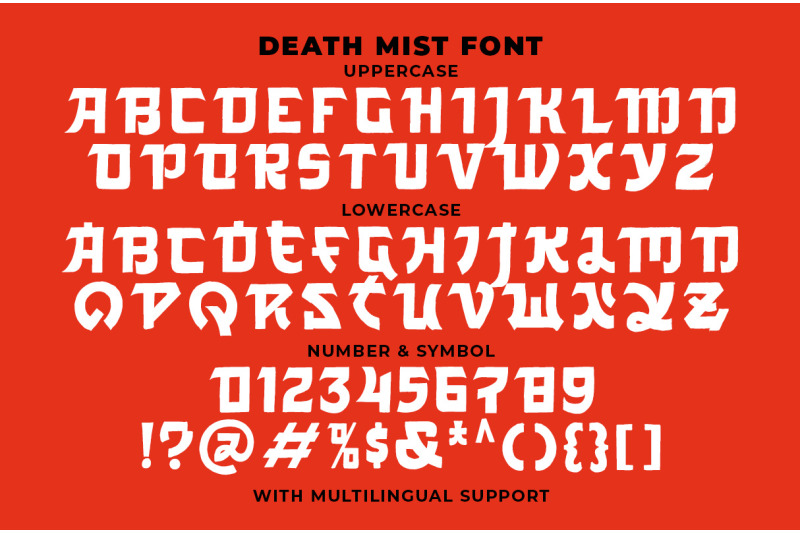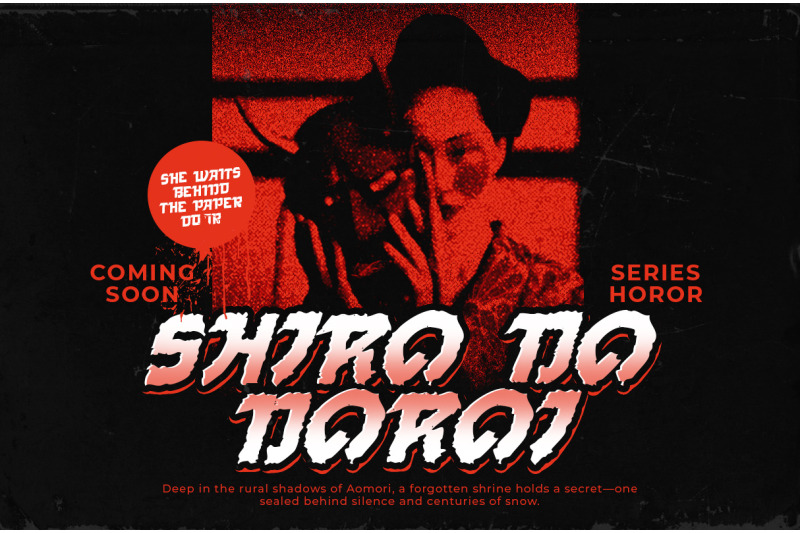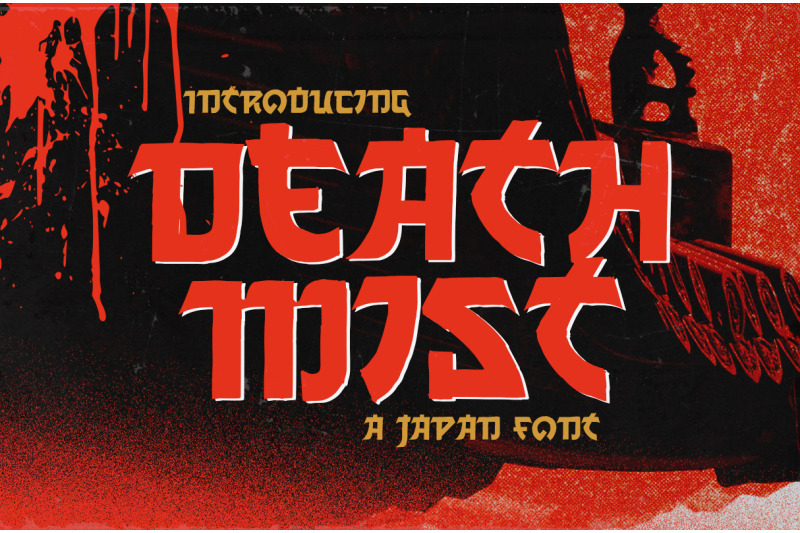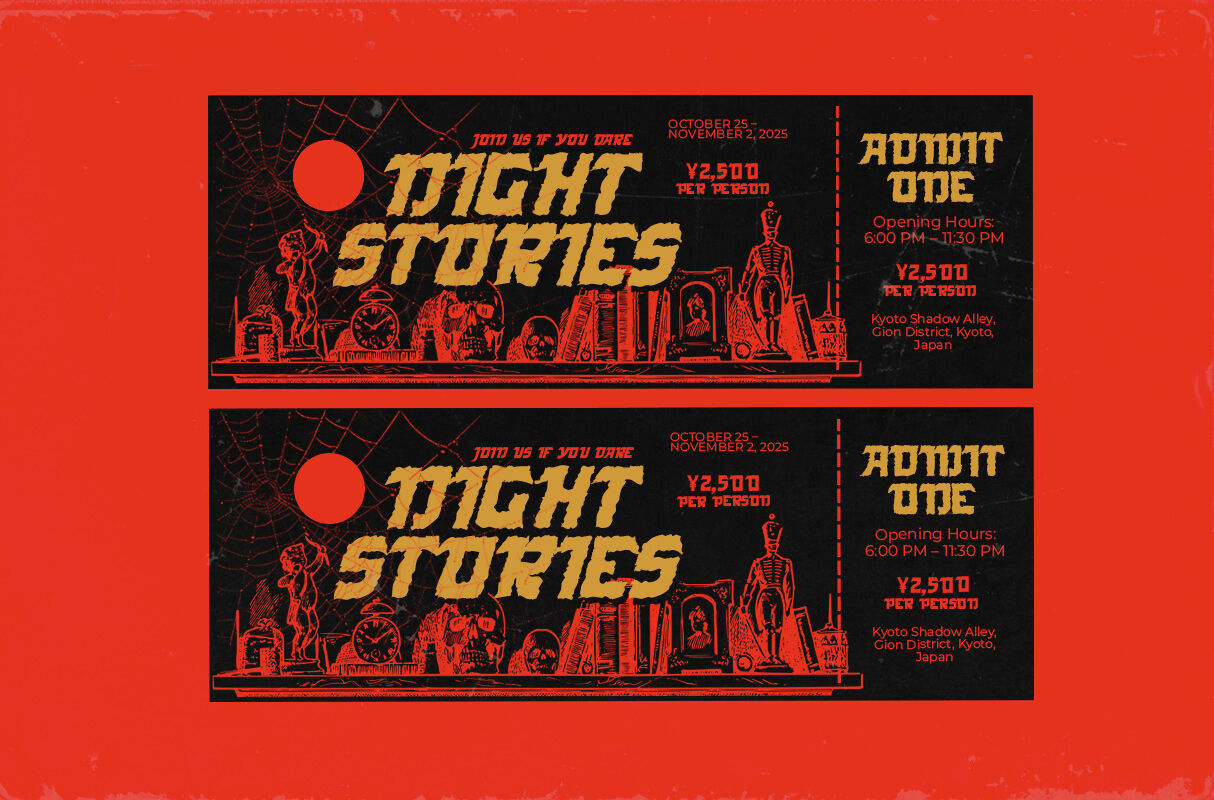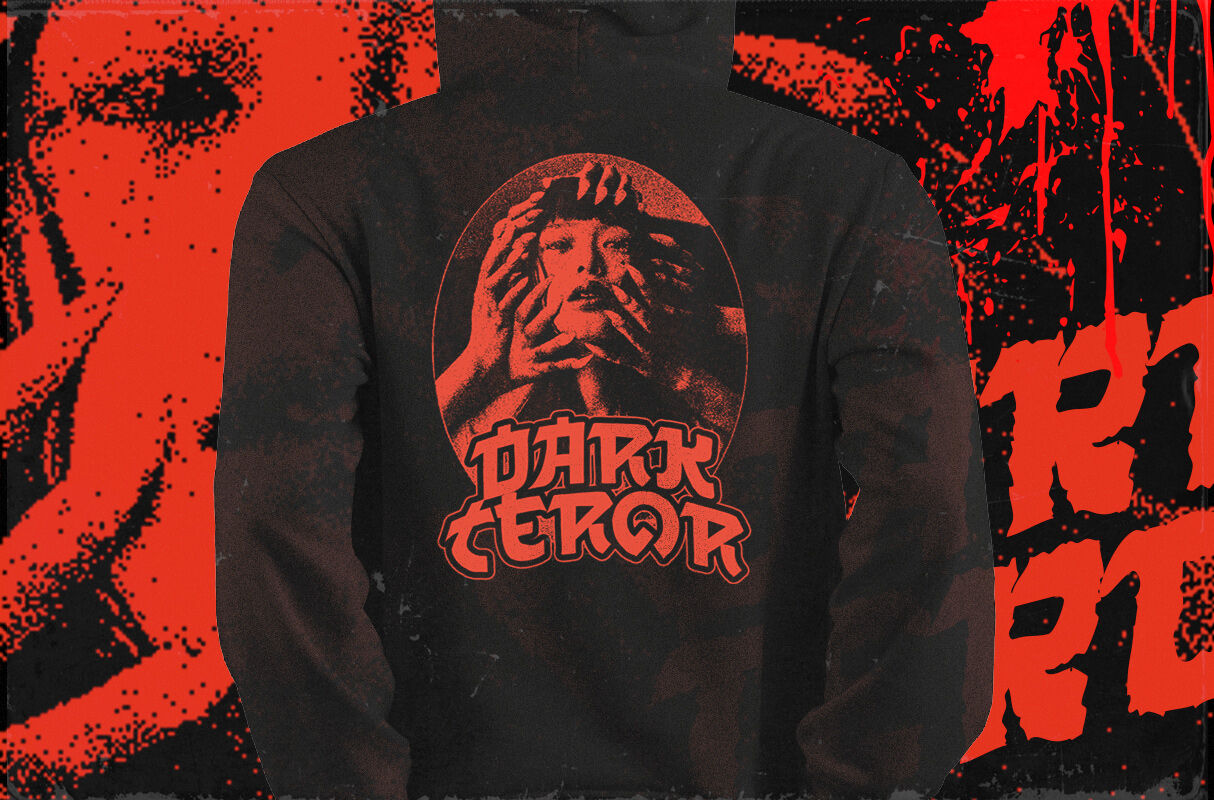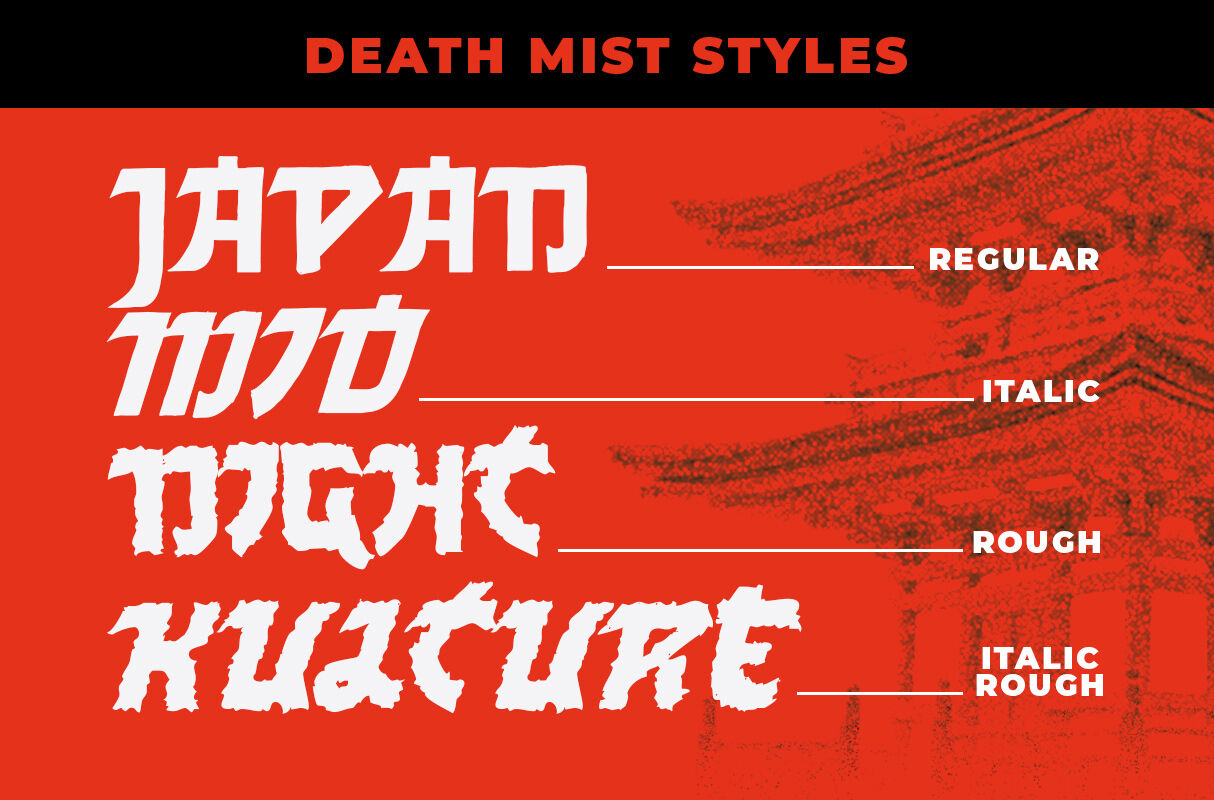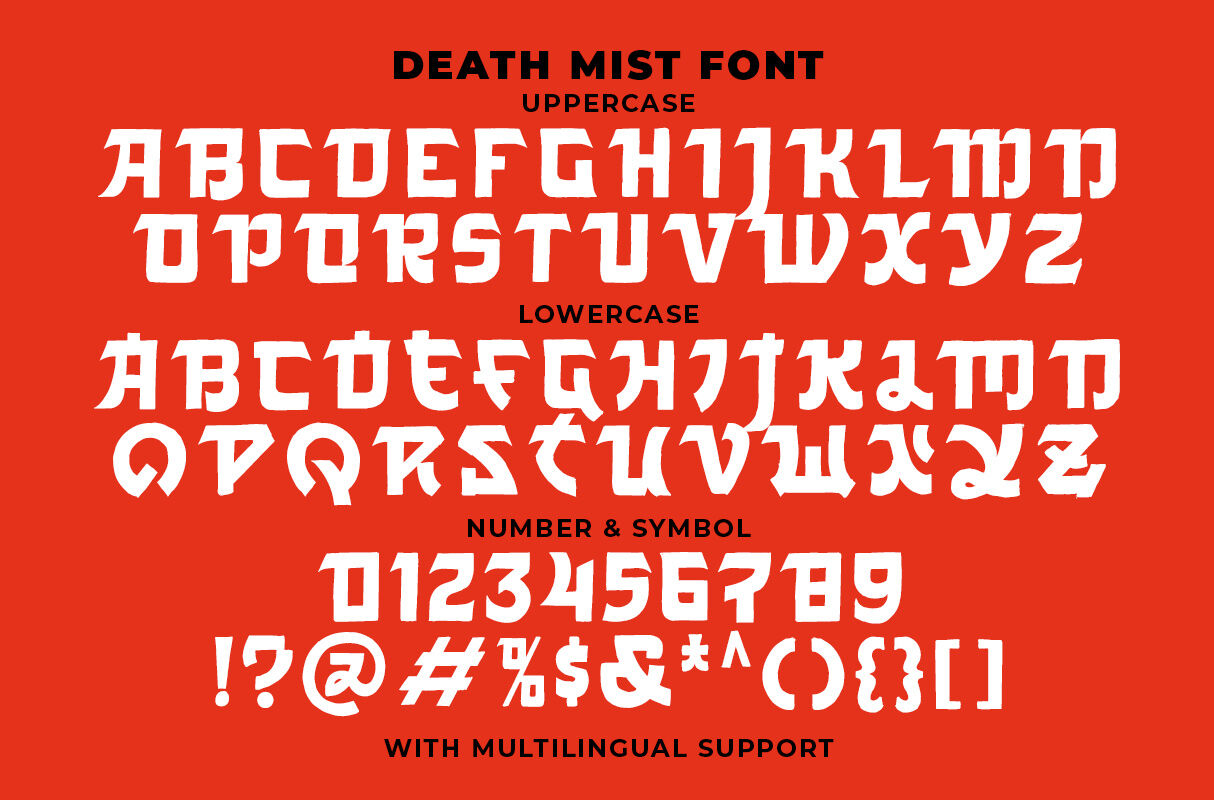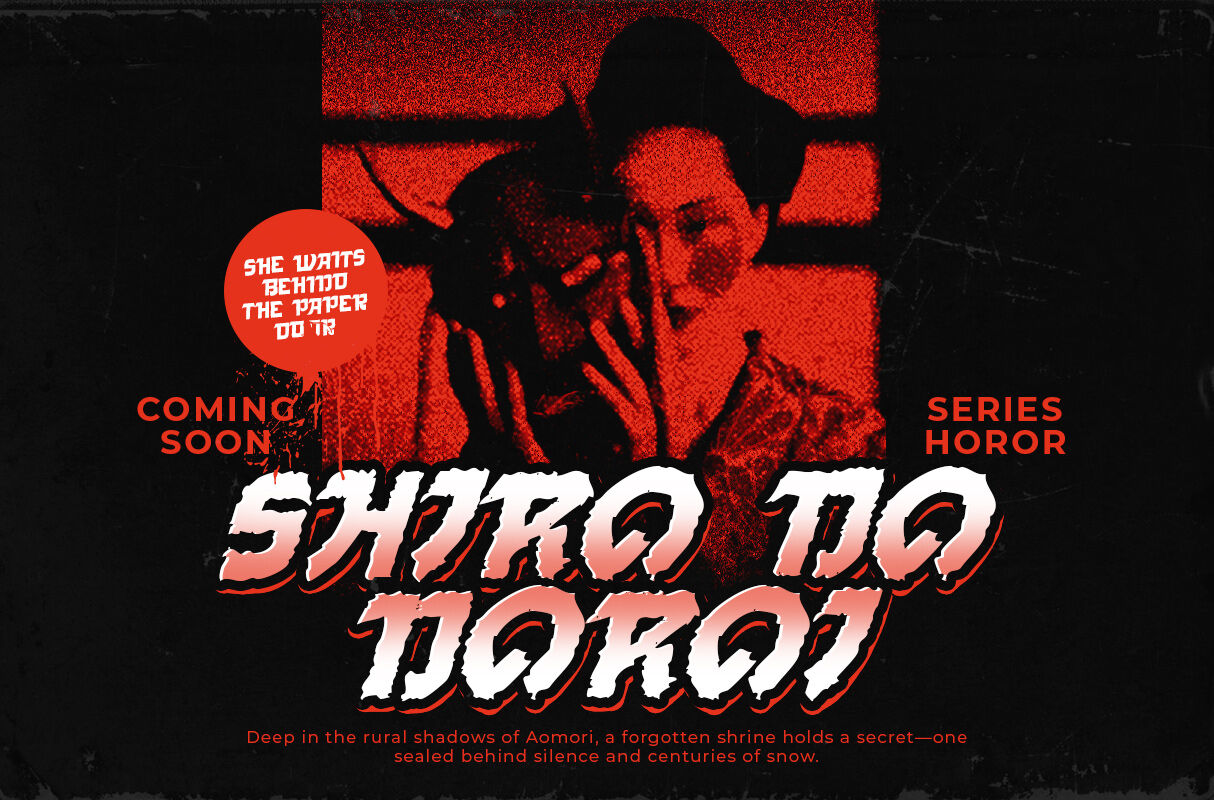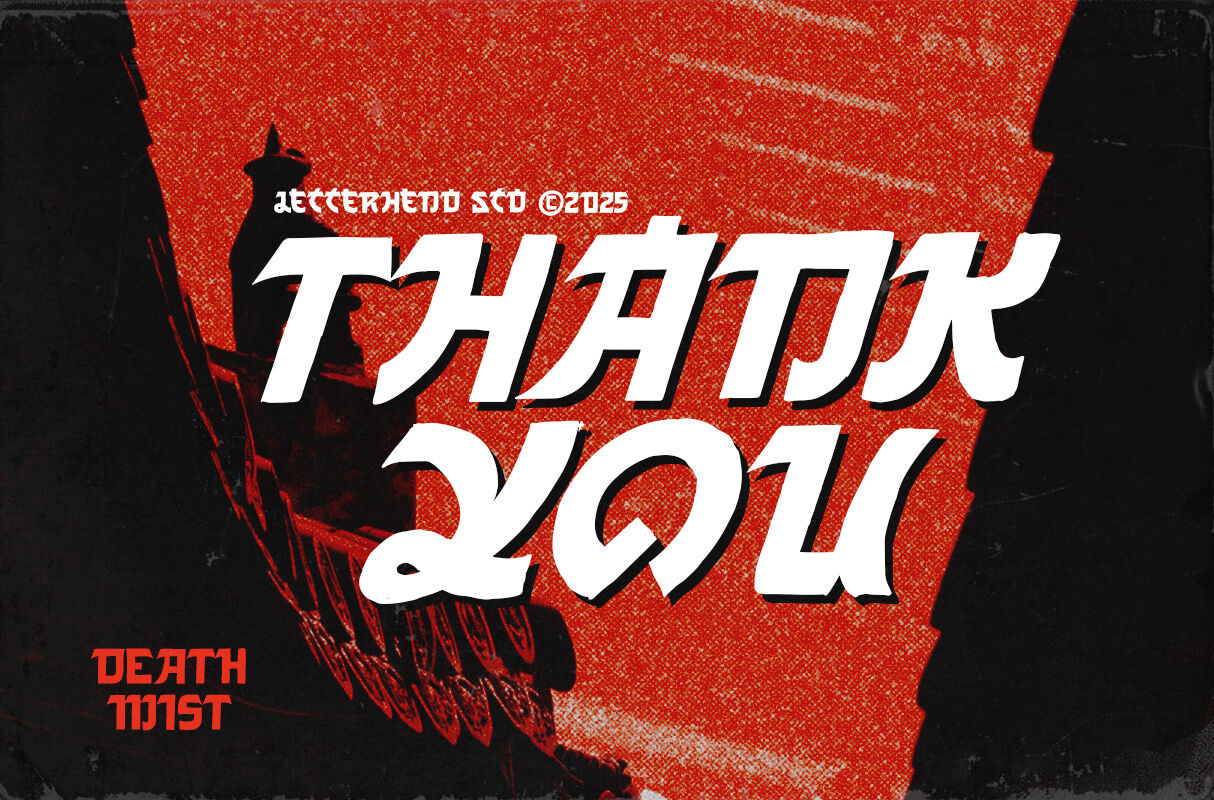
Death Mist isn’t just a font—it’s an atmosphere. With sharp, aggressive letterforms inspired by Japanese design and wrapped in a blood-red, gritty aesthetic, it’s made for projects that demand raw energy and unapologetic drama. Perfect for horror movie titles, heavy metal album covers, game logos, or any artwork that needs to hit hard and leave a mark, Death Mist delivers intensity in every curve and cut. This is typography with teeth—dark, bold, and impossible to ignore.
Uppercase & lowercase
Numbers and punctuation
Multilingual Support